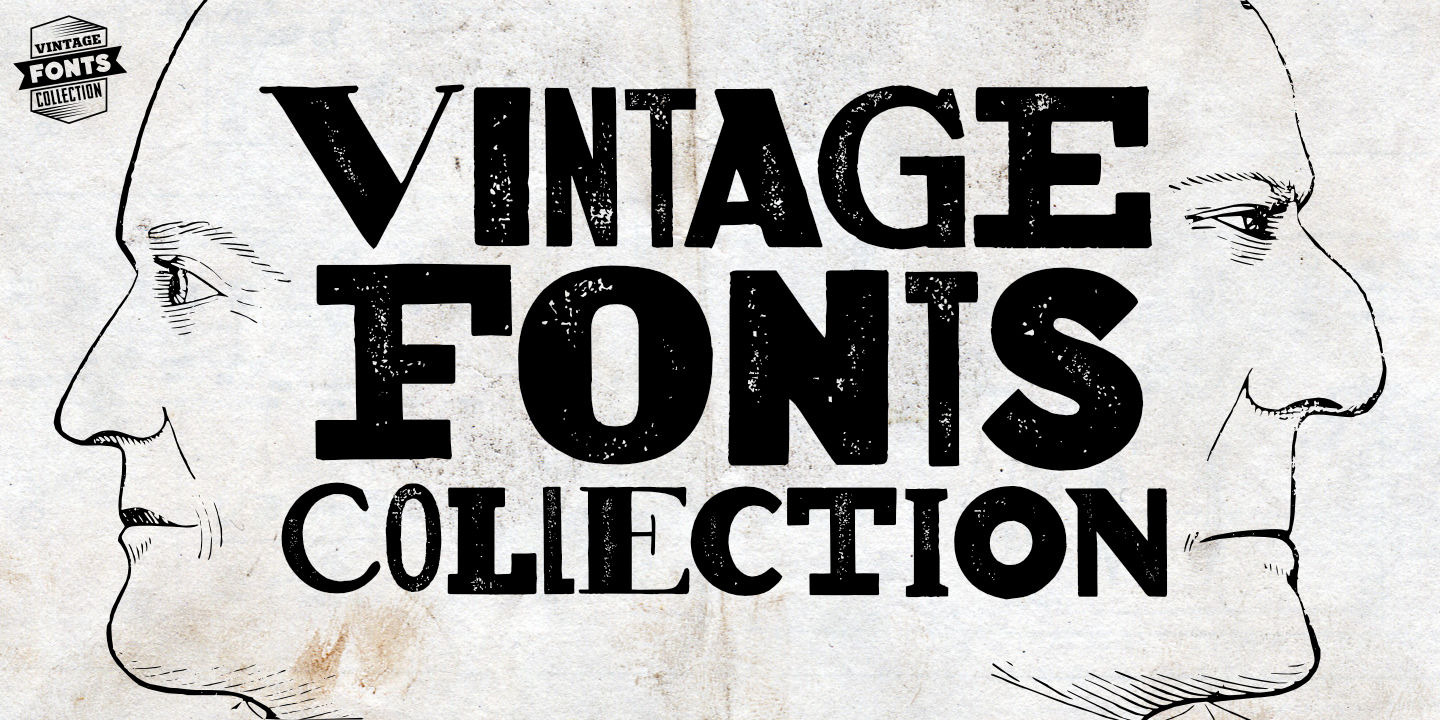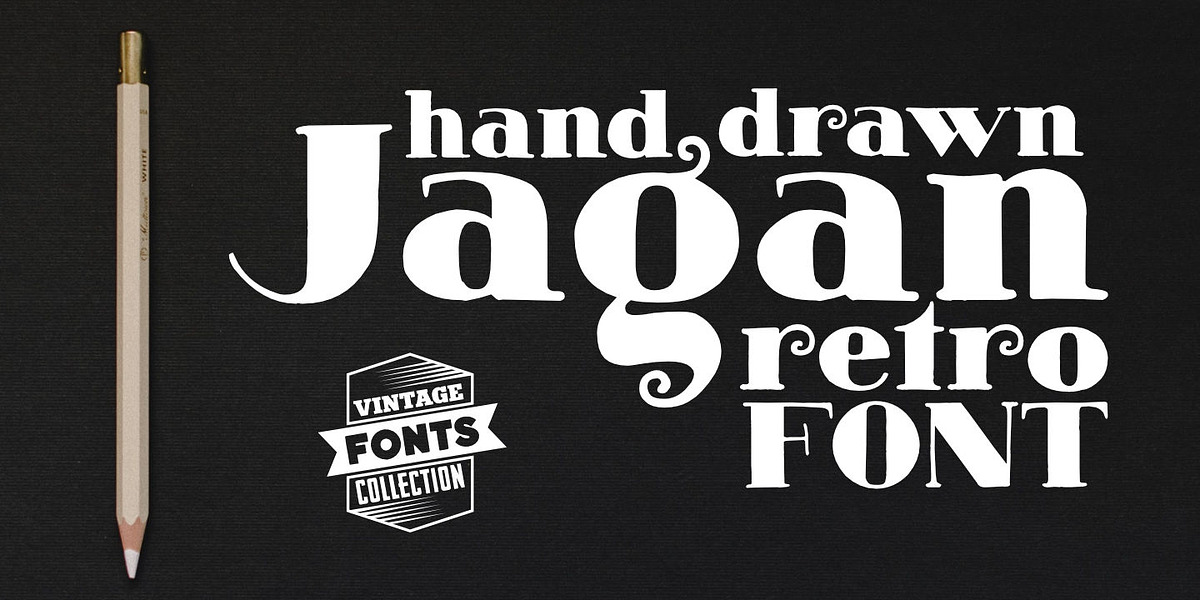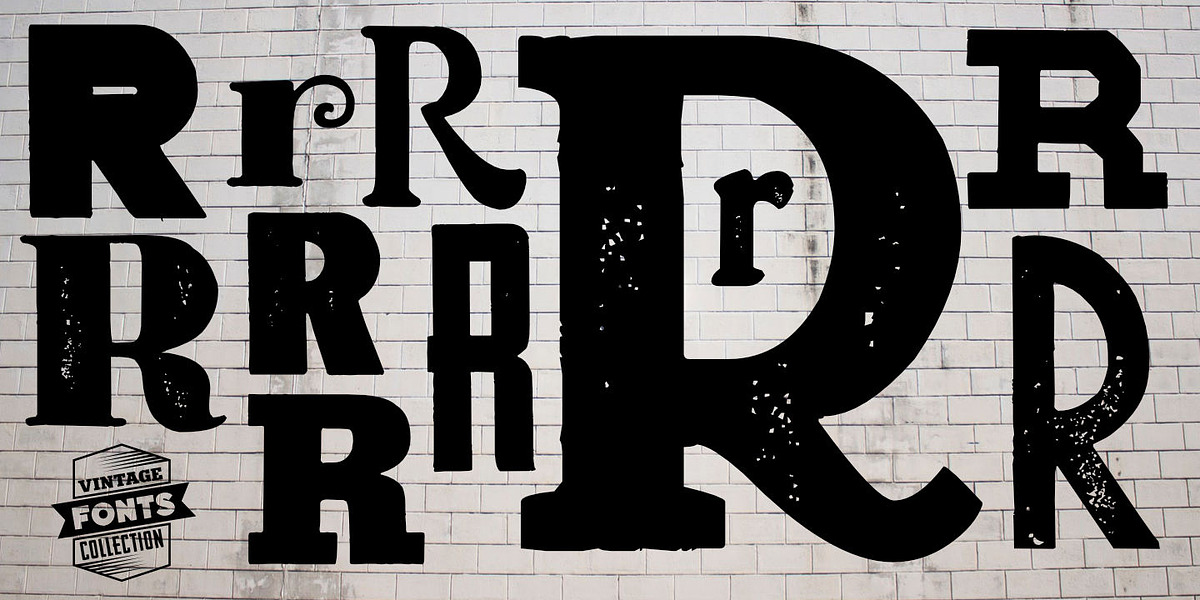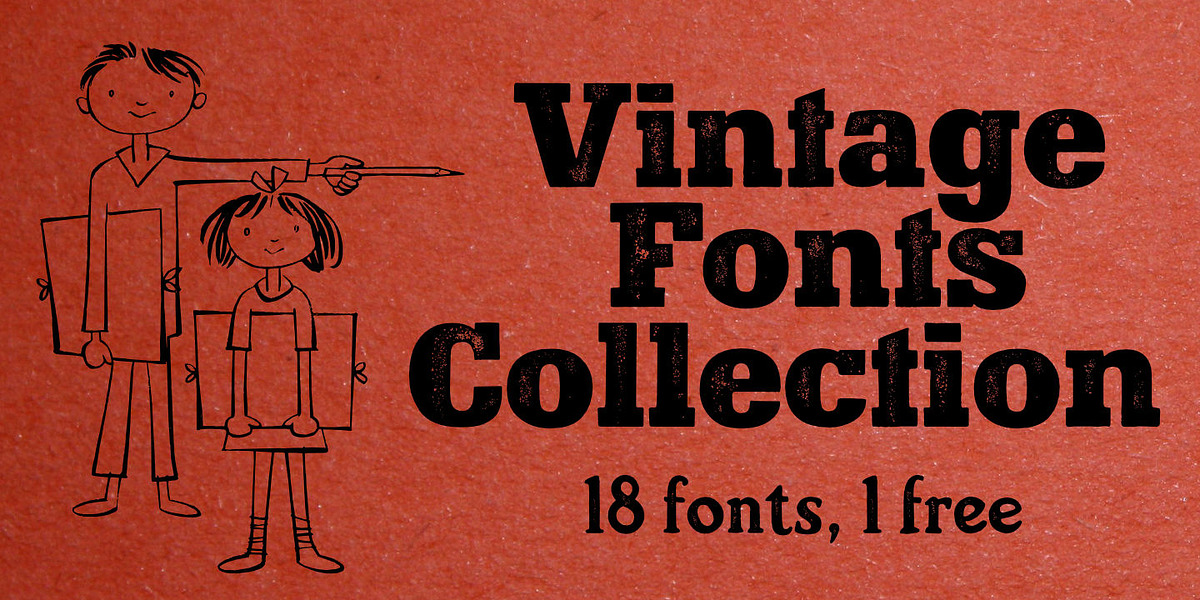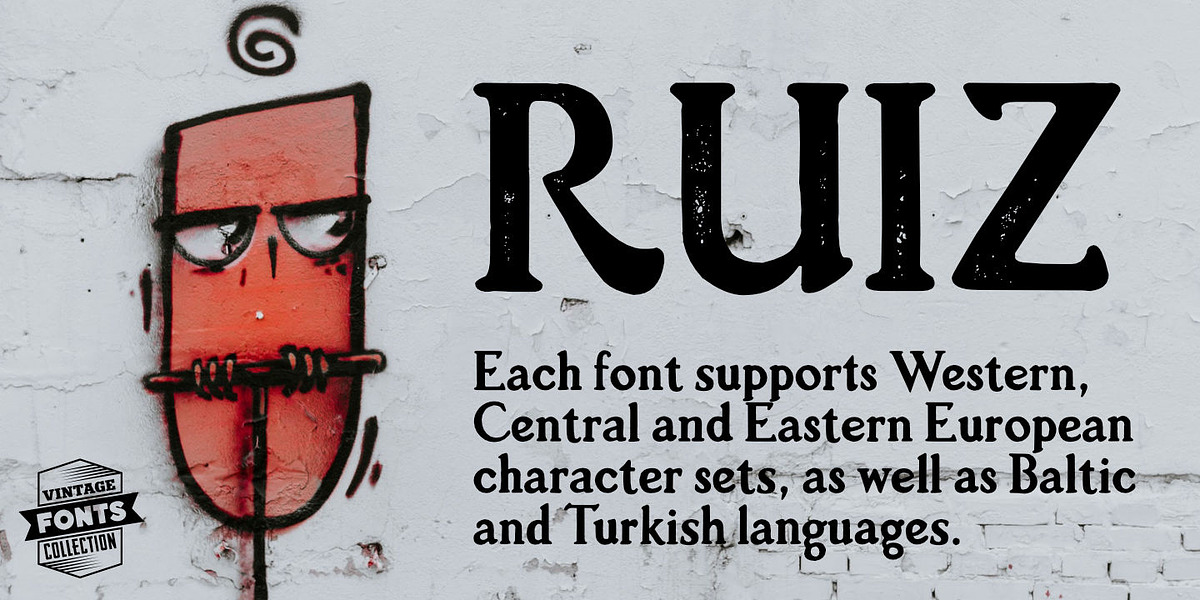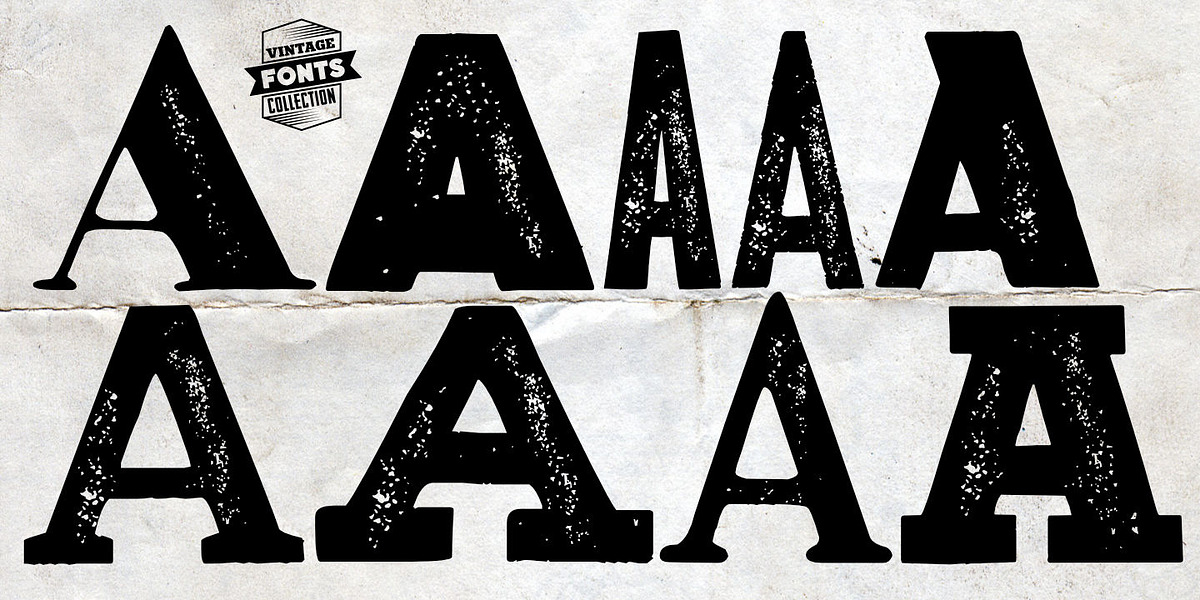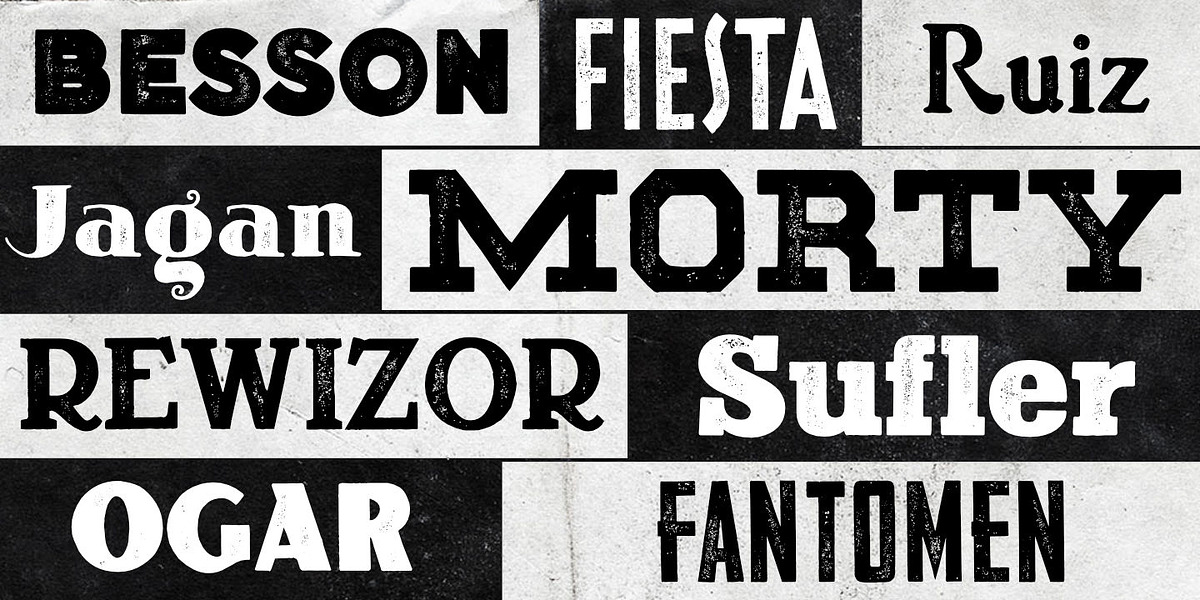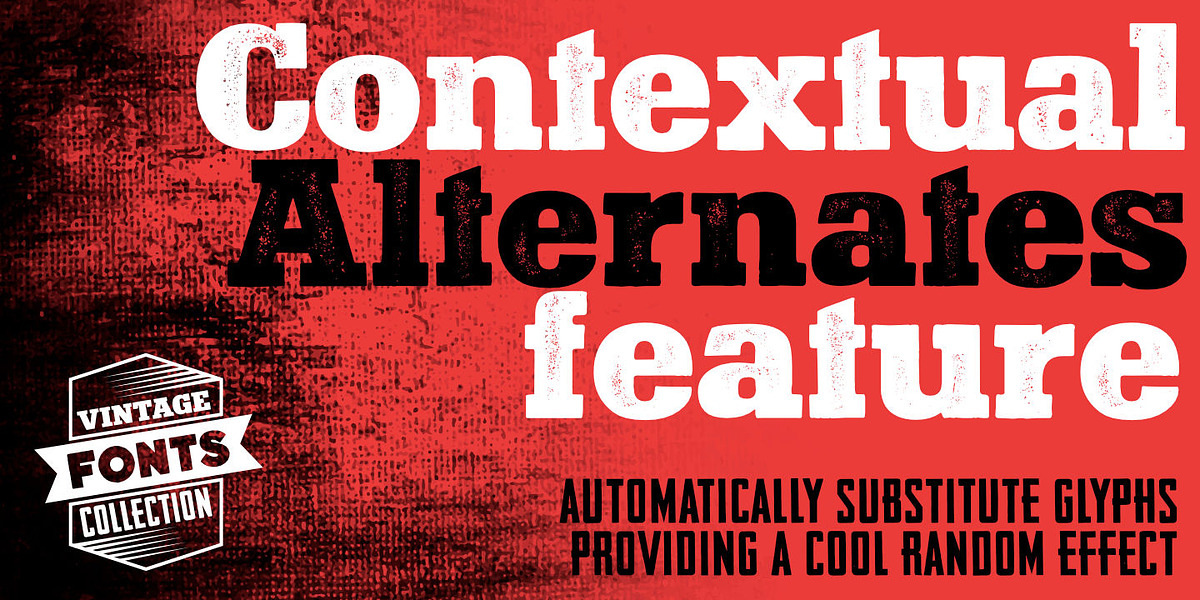
Vintage Fonts Collection
This vintage-inspired font collection features 18 hand-drawn styles. Each lowercase letter has three variations that automatically alternate in OpenType applications for a natural look. The geometric elements and rough texture lend themselves well to headlines, branding materials, and posters with a retro aesthetic.